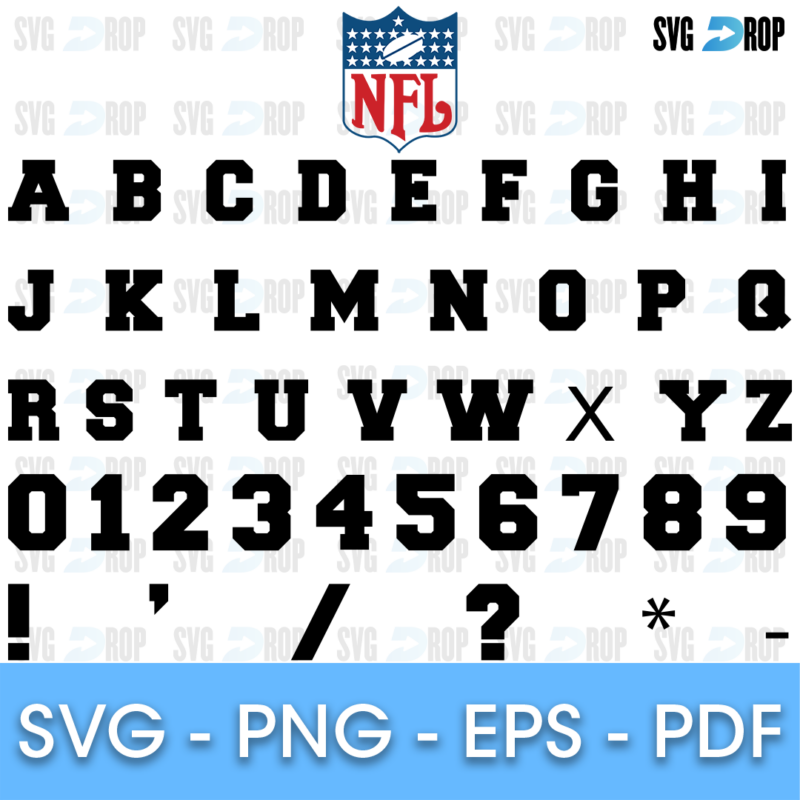
✨ A Nike style alphabet in bold black condensed capitals with numbers and punctuation marks, shown under the Nike wordmark and swoosh logo.
Nike alphabet and letters for Cricut
The Nike font comes as a full set of separate letters and numbers in the Nike style, so you can spell any name, team or word with it. Cut the letters in vinyl, or print them for sublimation and iron-on transfers.
👟 Personalised names and numbers for sports shirts, team banners, water bottles and signs.